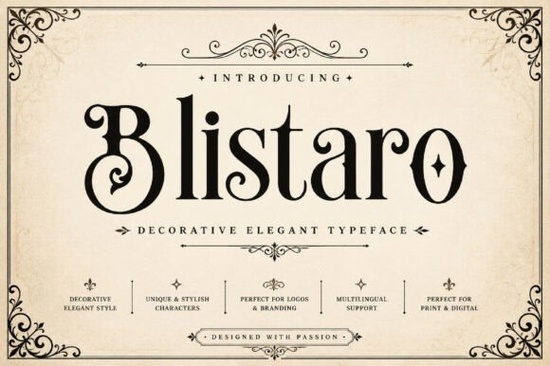
If you're looking for a decorative serif font that feels both elegant and approachable something that works just as well on a wedding invitation as it does on a boutique product label Blistaro Font is worth your attention. It’s not overly ornate, but it carries subtle artistic details: soft curves, refined serifs, and gentle flourishes that give it personality without sacrificing clarity. Designed with real-world use in mind, Blistaro balances visual interest with readability a practical win whether you’re laying out a social media post or prepping files for print.
When does Blistaro work best?
Blistaro shines in projects where tone and texture matter. Think of it as the kind of typeface you’d choose when you want people to feel something before they even read the words like warmth, care, or quiet confidence. It’s especially effective for:
- Wedding stationery (invitations, menus, signage)
- Small-batch product packaging (soaps, candles, artisanal food labels)
- Branding for creative businesses yoga studios, bookshops, handmade goods shops
- Editorial layouts in lifestyle blogs or indie magazines
- Social graphics where you need standout typography without relying on heavy effects
Because its letterforms are carefully spaced and proportioned, Blistaro holds up well at smaller sizes unlike some highly decorative fonts that blur or lose definition below 24pt. That makes it more versatile than it first appears. You can use it for headlines and subheads confidently, and even for short body text in print pieces like greeting cards or mini lookbooks.
How does it compare to other decorative serifs?
Not all decorative serif fonts play nicely with modern design sensibilities. Some feel dated or too formal; others lean too far into whimsy and lose professionalism. Blistaro sits comfortably in the middle. It has enough character to stand out, but not so much that it overwhelms your message.
For example, if you’ve used Vogane Font, you’ll notice Blistaro is slightly softer and less geometric. Compared to Ironwood Western Font, it lacks rustic texture and instead offers clean, graceful lines. And while Carnival Lights Font leans festive and playful, Blistaro keeps things grounded and timeless ideal for brands building long-term recognition.
It also pairs well with simpler sans-serifs (like Montserrat or Poppins) for contrast, or with another refined serif like Montegar Font for layered hierarchy in editorial work.
You’ll get uppercase and lowercase letters, numerals, punctuation, and basic multilingual support (including accented characters used in French, Spanish, Portuguese, and German). It doesn’t include alternate glyphs or stylistic sets but that’s intentional. The design focuses on consistency and ease of use, not complexity.
One thing to note: Blistaro isn’t a variable font, and it doesn’t come with bold or italic “styles” built in. But its weight is naturally balanced neither too light nor too heavy so many users find they don’t need alternates for most applications. If you do need contrast, pairing it with a clean sans-serif for body text usually solves the problem neatly.